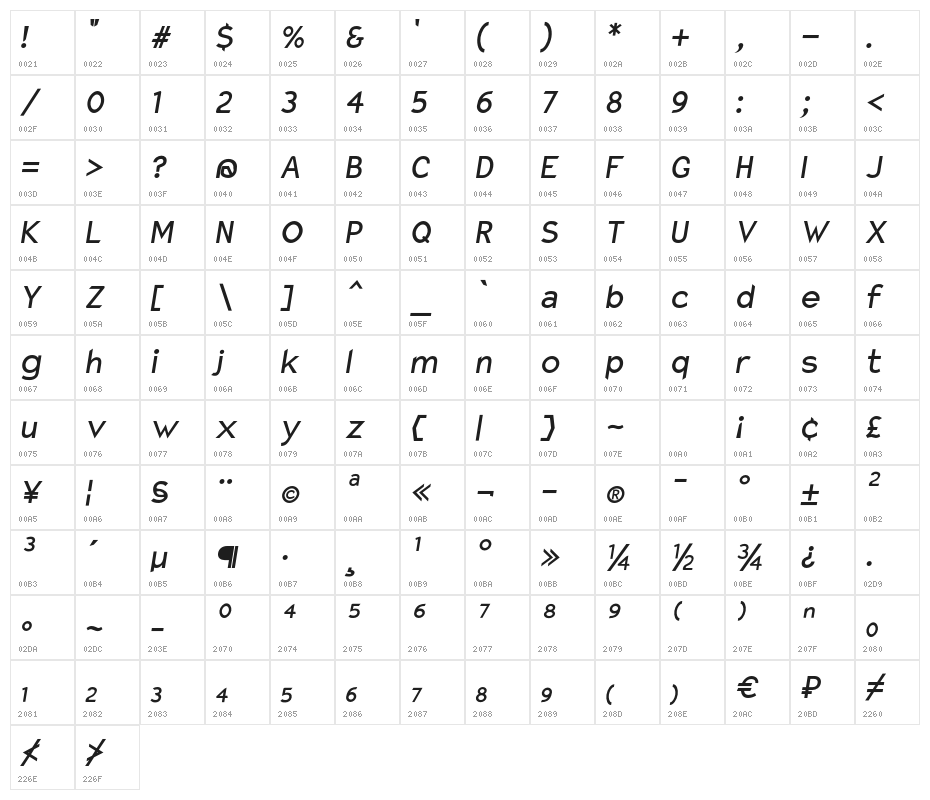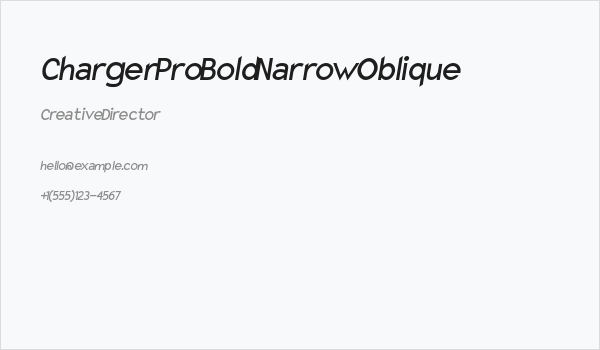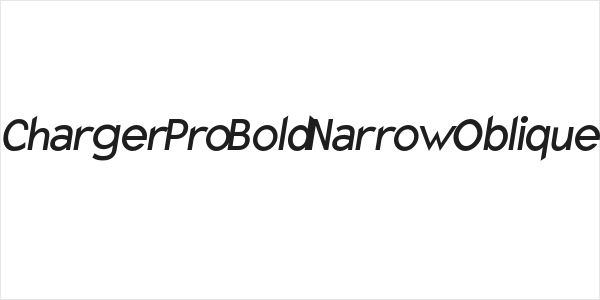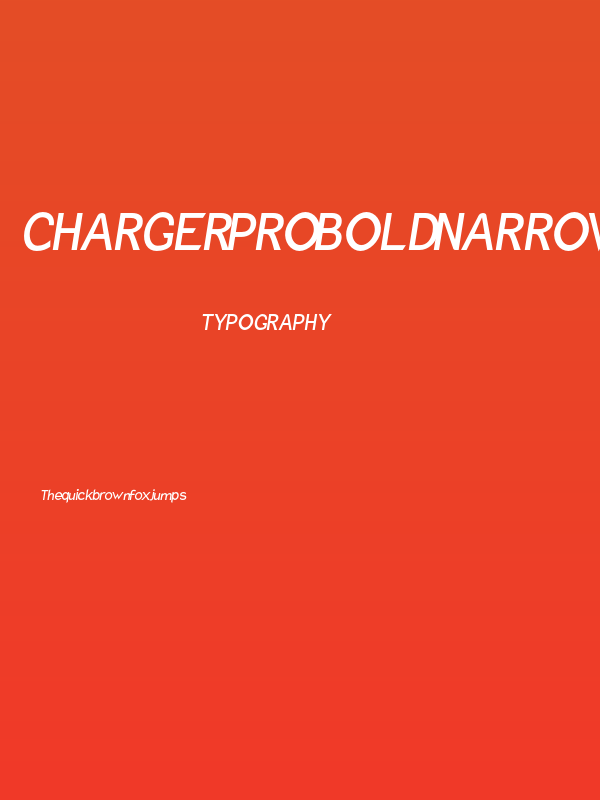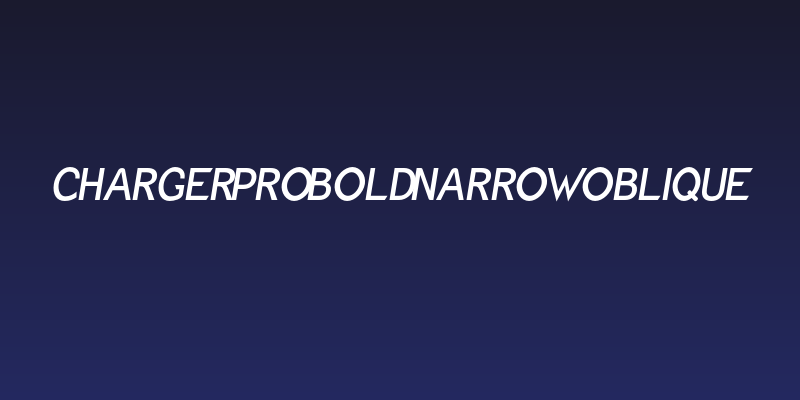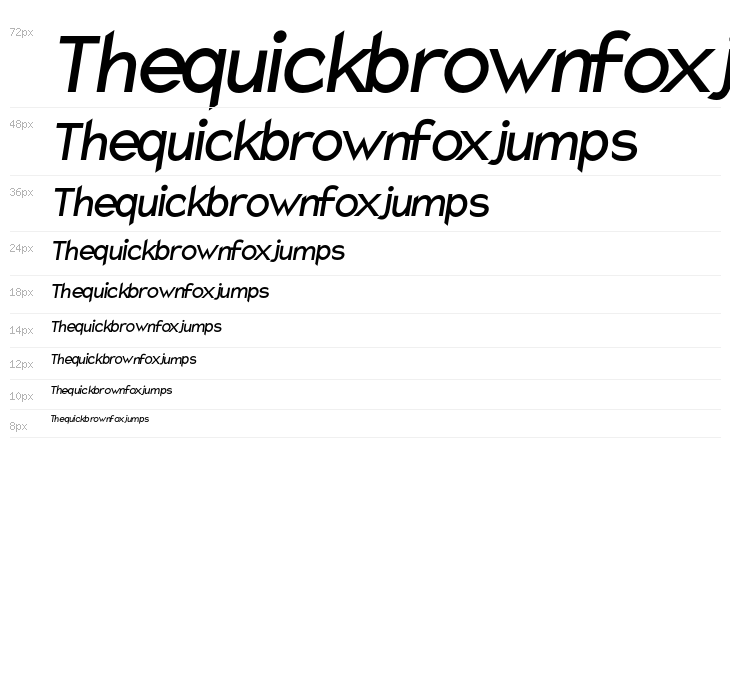
Charger Pro Bold Narrow Oblique Font
Charger Pro Bold Narrow Oblique Description
This typeface features a bold and narrow design with an oblique slant, giving it a dynamic and modern appearance. The uppercase and lowercase letters are crafted with precision, maintaining a consistent stroke width that enhances readability. The numerals are clear and distinct, while the special characters are well-integrated, ensuring versatility in various design contexts. The overall style is sleek and contemporary, making it suitable for projects that require a strong visual impact.
| Use Case | Headlines, Logos, Advertising |
| Proposed Projects | Ideal for branding, advertising, headlines, and digital media where a strong and modern presence is desired. |